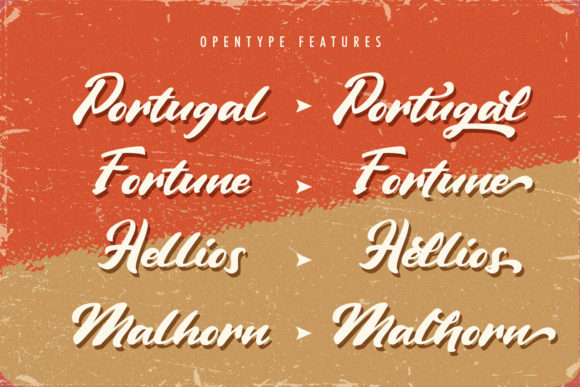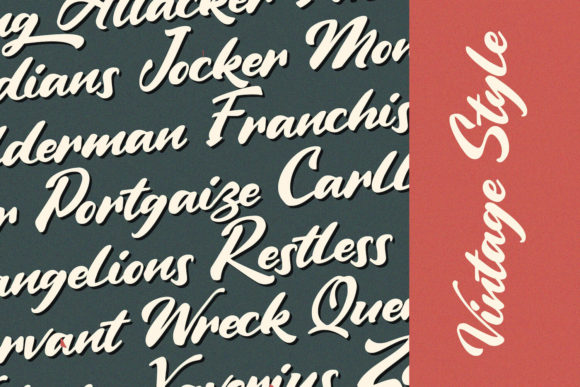
Vintage Style Font
db-ku.com - Script & Handwritten -- Vintage Style is a unique and modern handwritten font. Use this gorgeous and unique font to bring any DIY project to life!